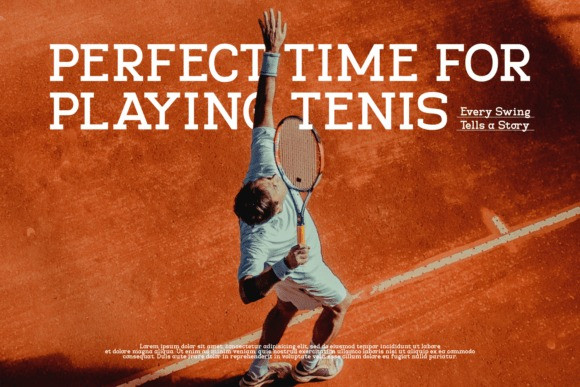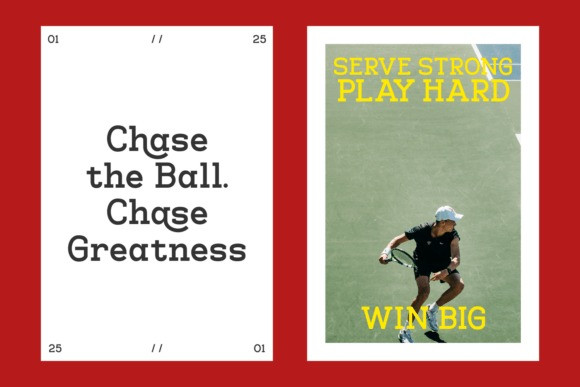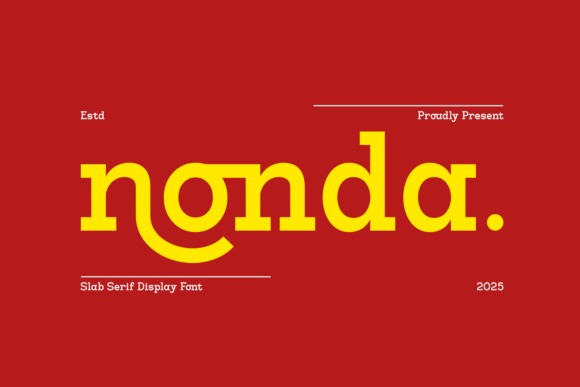
Nonda Font
Nonda Font a slab serif display font from the year 2025. The font is characterized by its modern, geometric forms and a unique ligature that stylistically connects the first two letters.